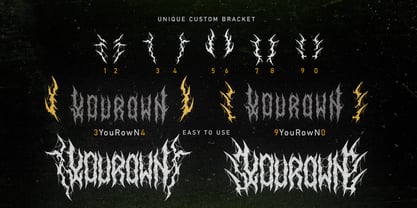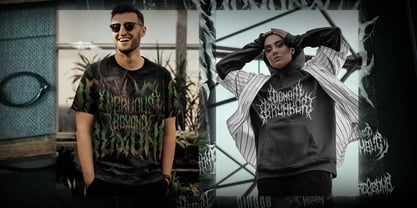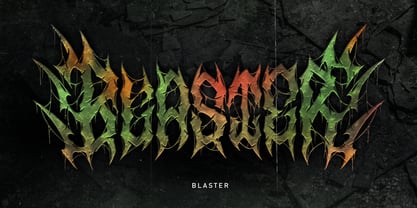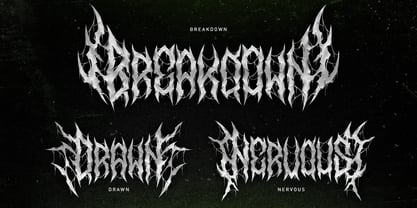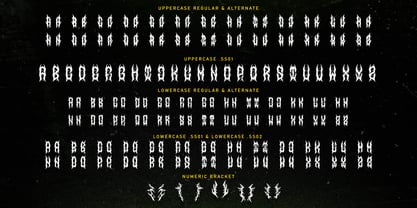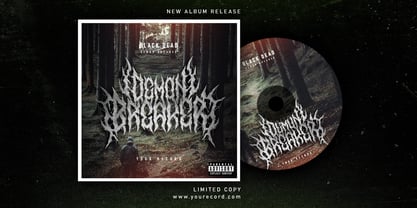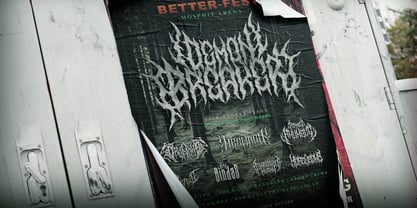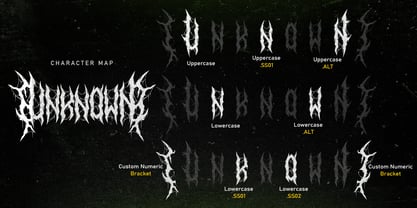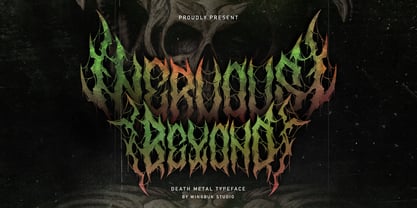
Nervous Beyond Metal
by WingBuk
The Nervous Beyond Metal Font Family was designed by Adji Shaka and published by WingBuk. Nervous Beyond Metal contains 1 styles.
Nervous Beyond drips with chaos — sharp, tangled, and born from the darker side of sound. The letterforms feel like they're crawling out of a nightmare, blending twisted energy with raw emotion. It’s not just a font — it’s a vibe. Perfect for bands, metal merch, or anything that needs to scream without saying a word.